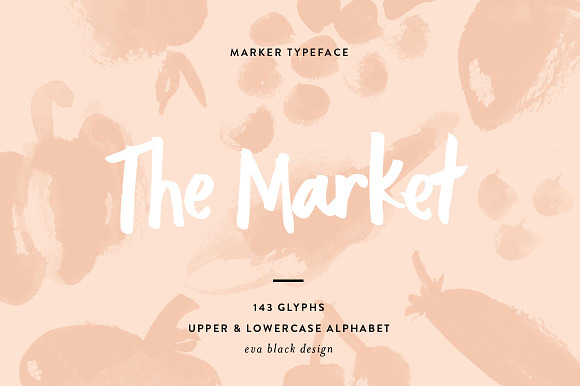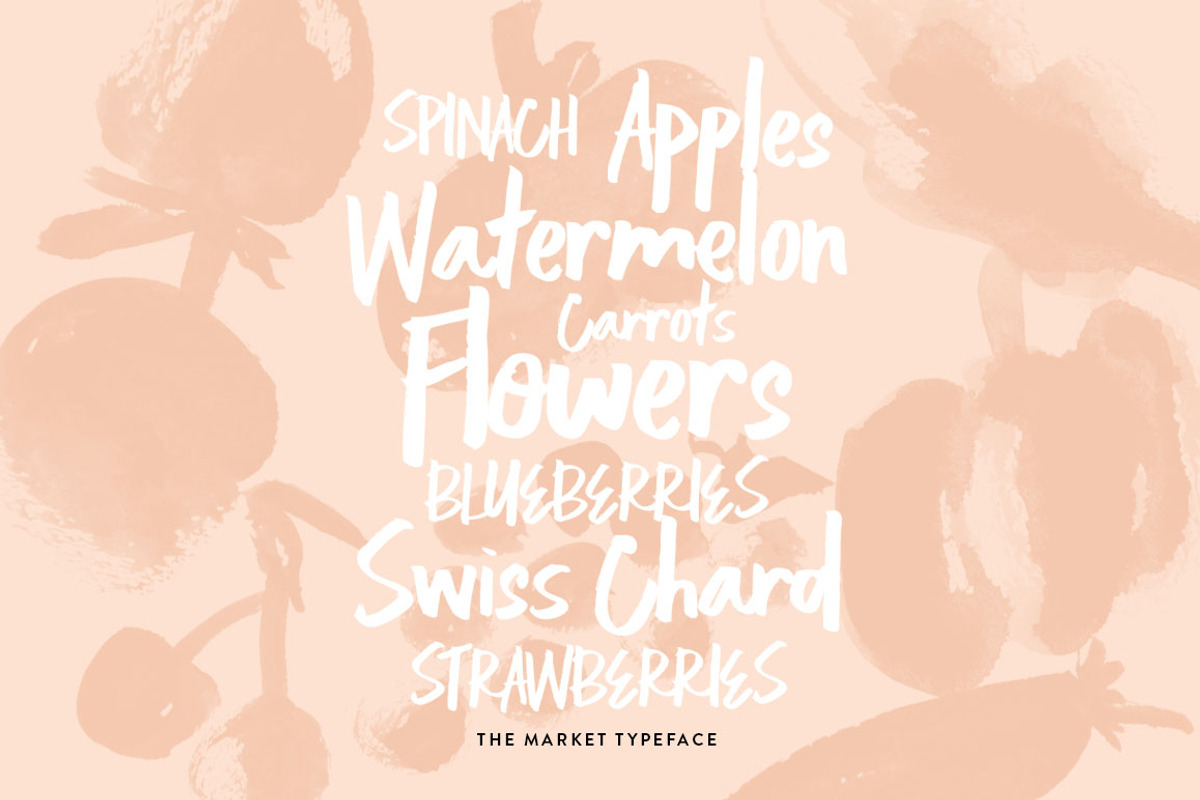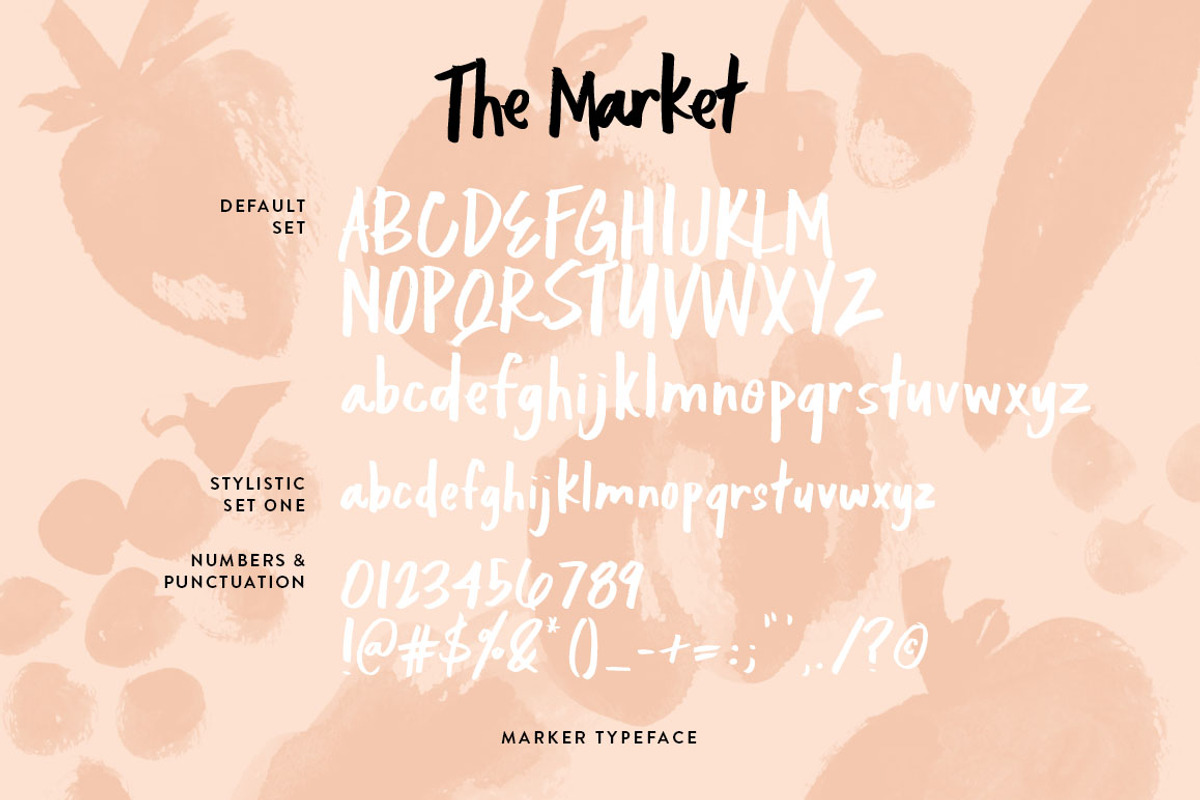
The Market Font
Marker font with relaxed letterforms, natural variation, and movement.
Relaxed marker lettering style.
Perfect for logos, invites, website headers, photo overlays, etc.
Default Character Set A-Z, a-z.
Numbers & Punctuations.
Contextual & Stylistic Alternates.